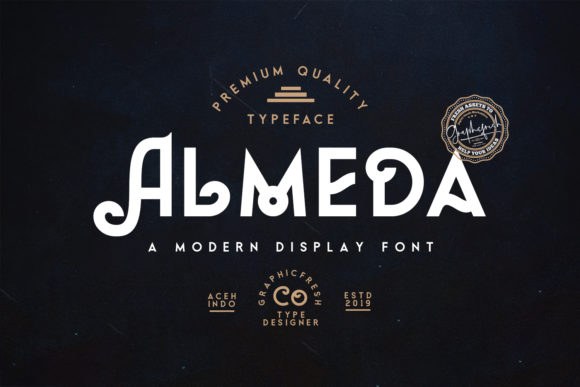
Welcome to the realm of Almeda Font, an extraordinary display font that exudes elegance, uniqueness, and a touch of vintage charm. Designed with intricate details and a captivating personality, Almeda Font stands out from the ordinary, ready to transform your creative projects into masterpieces.
Almeda Font's vintage aesthetics will take you on a nostalgic journey, adding a timeless allure to your designs. Whether you're crafting logos, name cards, magazine covers, or enchanting invitations, this font will infuse a touch of sophistication and charm into every letter.
Unleash your creativity with Almeda Font's versatility, which shines in headers, posters, and branding materials. Its distinct style will make your designs unforgettable, leaving a lasting impression on your audience.
With Almeda Font, you're not just acquiring a font; you're embracing a world of endless creative possibilities. Its vintage elegance and modern twist provide an exquisite blend that will elevate your designs, making them truly exceptional.